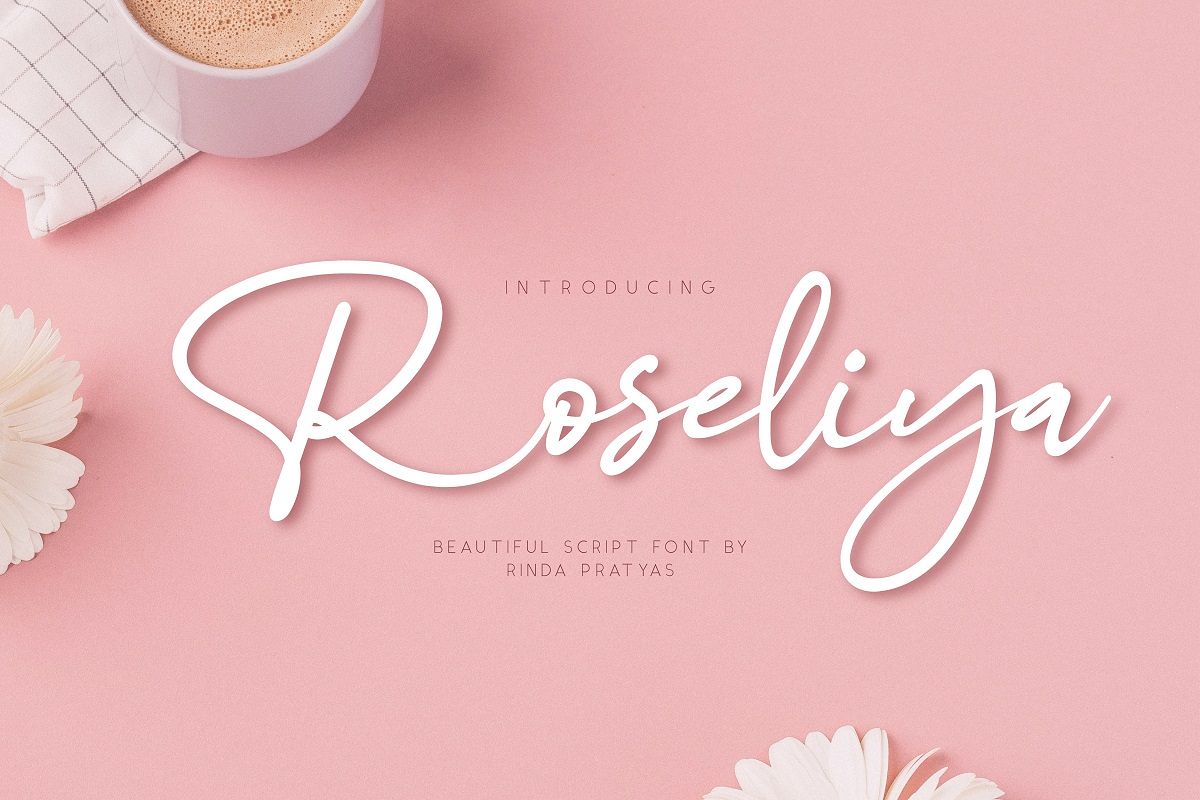
Roseliya Beautiful Script Font
Introducing my new font "Roseliya" Beautiful script font!
This font is perfect for branding projects, quotes, signatures, logos, watermarks, and much more.